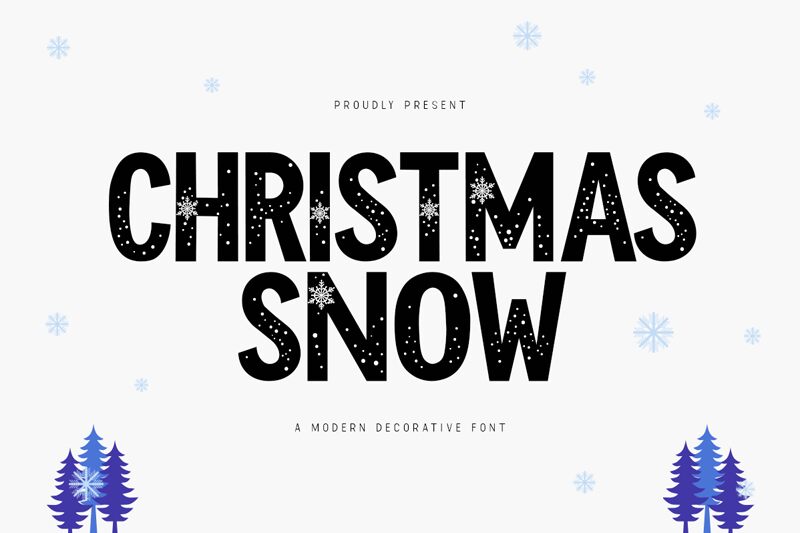
Christmas Snow font by Kong Font is a festive holiday typeface that embodies a cheerful, decorative spirit. This seasonal free font features charming snowflake motifs and a joyful aesthetic, perfect for adding that extra holiday touch. Its playful and decorative nature makes it an excellent choice when looking to convey festivity and warmth.
Use Christmas Snow in Christmas cards, holiday invitations, festive banners, or seasonal packaging. This font also brings cheer to digital designs, such as websites, newsletters, and social media graphics, making it versatile for any festive project.